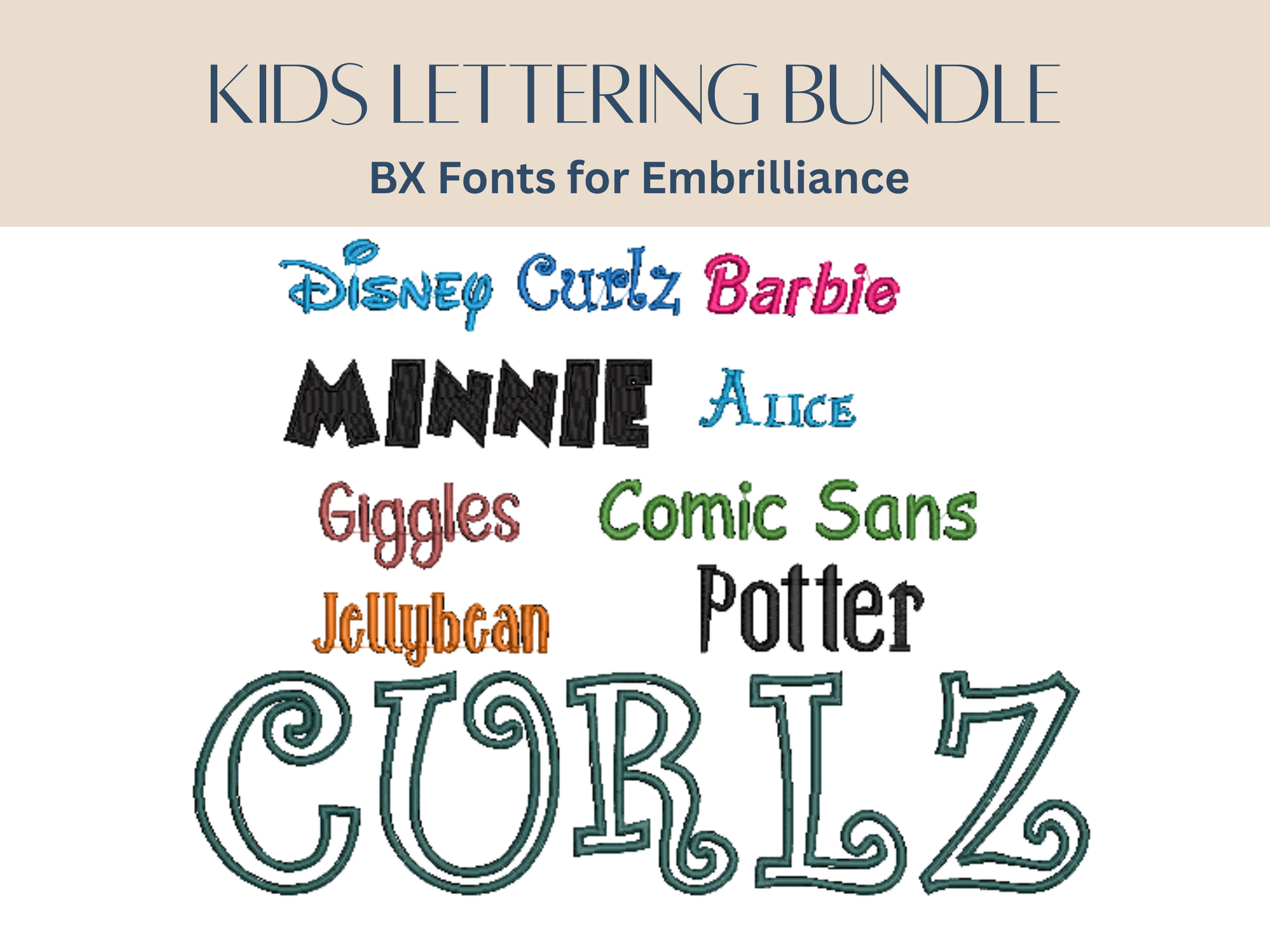
Kids Lettering Bundle BX Fonts
🌟 Kids BX Font Bundle – 10 Fun & Whimsical Fonts! 🌟
Bring magic, playfulness, and creativity to your embroidery projects with this special kids-themed BX font bundle! Perfect for adding names, monograms, and playful text, this collection includes 10 fonts inspired by childhood favorites:
✔️ Disney – 1, 2, 3 and 4 inch
✔️ Minnie – 1.5, 2 and 2.5 inch
✔️ Alice – 1, 2 and 3 inch
✔️ Barbie – 1, 1.5 and 2 inch
✔️ Potter – 1.5, 2 and 2.5 inch
✔️ Giggles – 1, 1.5 and 2 inch
✔️ Jellybean – 1, 1.5 and 2 inch
✔️ Comic Sans – 1, 1.5 and 2 inch
✔️ Curlz – 1, 1.5 and 2 inch
✔️ Curlz Appliqué – 4 inch
With a variety of sizes included, you’ll have the flexibility to create everything from bold lettering to delicate details. Whether you’re stitching for clothing, accessories, bedroom décor, or personalized gifts, this bundle is packed with fun fonts kids will love!
Make every project extra special with lettering that’s as bright and cheerful as the little ones you’re creating for! 💖